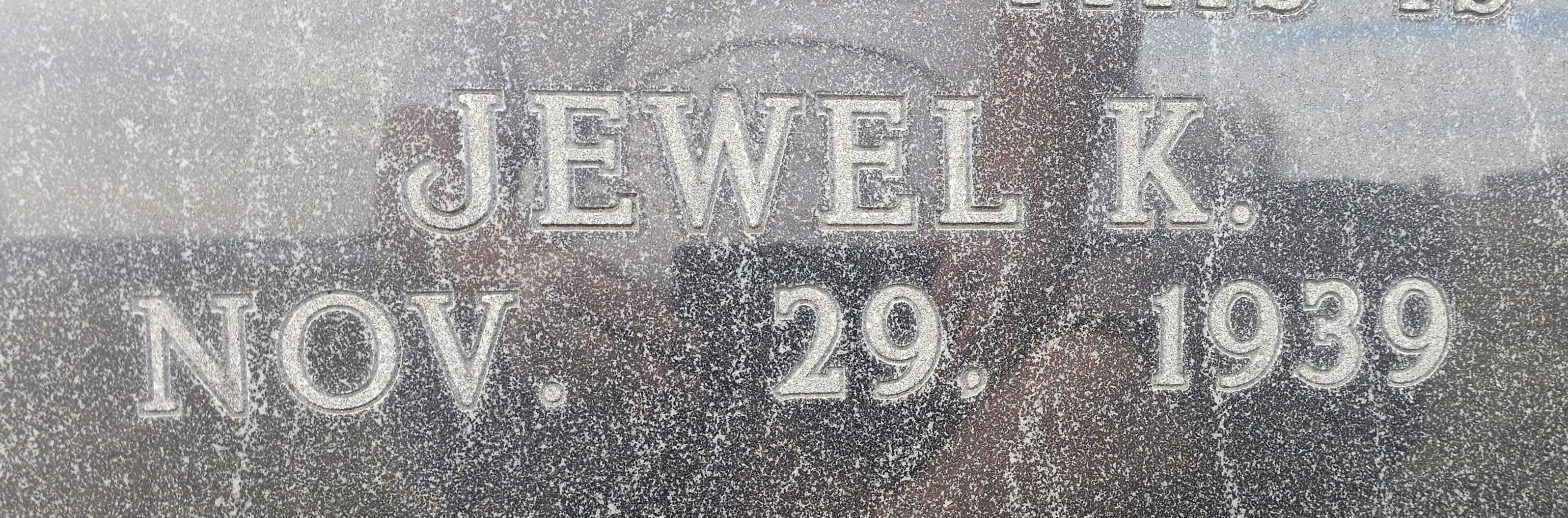
This one I have always worked around.
The oh (O) is really wide as is the 6’s and 9’s.
The (J) is what really does it, anyone know what font this is, I finally need that (J).
Hello, while there are more than one monument industry alphabet containing this style of ‘J’, this one is the ScotchKut Double Outline stencil press alphabet. The metal Spacerite Double Outline being the first, but with some differences. Both of the alphabets contain alternate versions of the ‘J’ and wider versions of both ‘O’ and ‘Q’.
Because the alphabet changed quite a bit at different sizes, there are multiple digital versions of the ScotchKut Double Outline available in the MLC Font Shop which will match it at all of the various sizes.
MLC ScotchKut Double Outline – Smallest Size (1″)
MLC ScotchKut Double Outline -Medium and Larger Sizes (1.25-3.5″)
There are currently no digital versions of the Spacerite Double Outline alphabet, but one will be added to the Font Shop as soon as it is available.